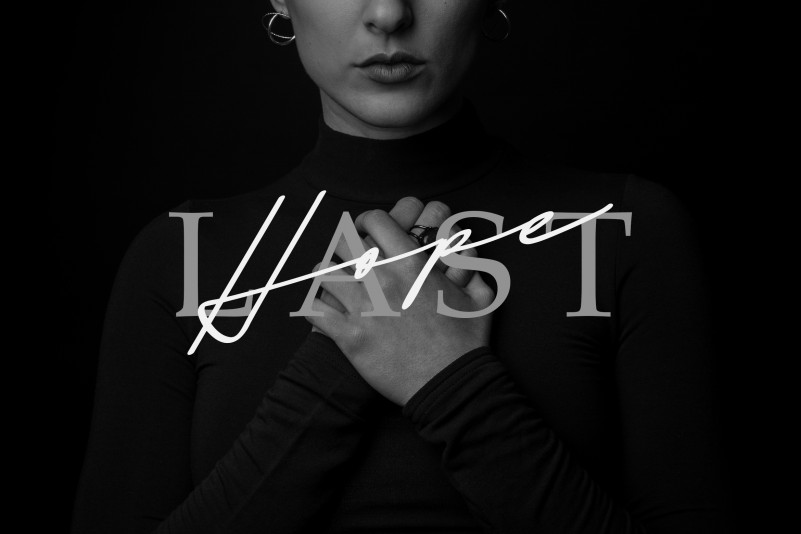
The Garisha Signature Font
The Garisha is a signature font script that is perfect for a variety of projects. Get inspired by its elegant style!
Mesinitik Studio